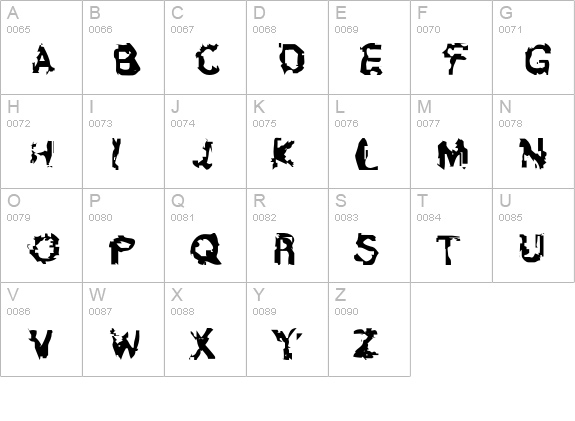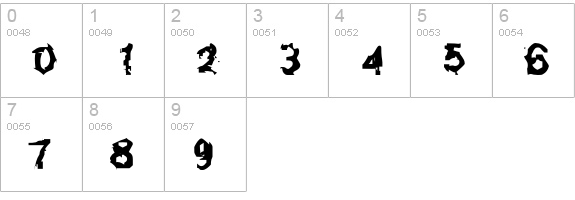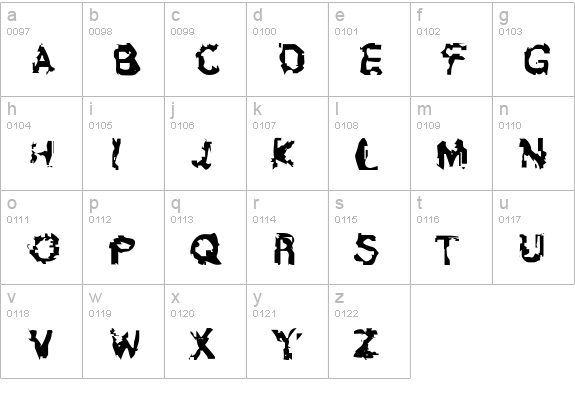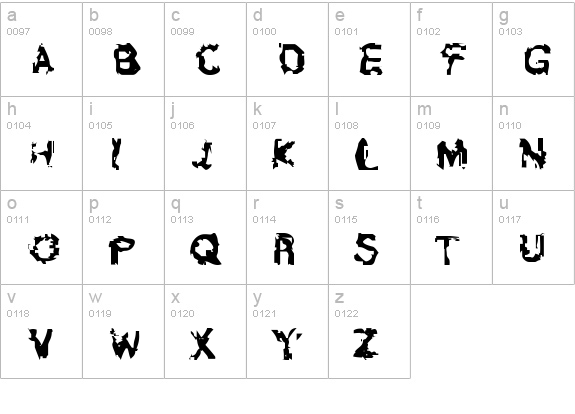
Agressiva Font Details
Agressiva font is a modern and edgy typeface that exudes strength and boldness. With its sharp angles and powerful presence, this font is perfect for making a statement in your designs. Whether you're creating posters, logos, or website headers, Agressiva font will grab the attention of your audience and leave a lasting impression. And the best part? Agressiva font is available for free download at FontsMarket.com! Simply visit the website to get your hands on this striking typeface and start using it in your projects today. Don't miss out on the opportunity to add a touch of aggressiveness to your designs with this dynamic font.